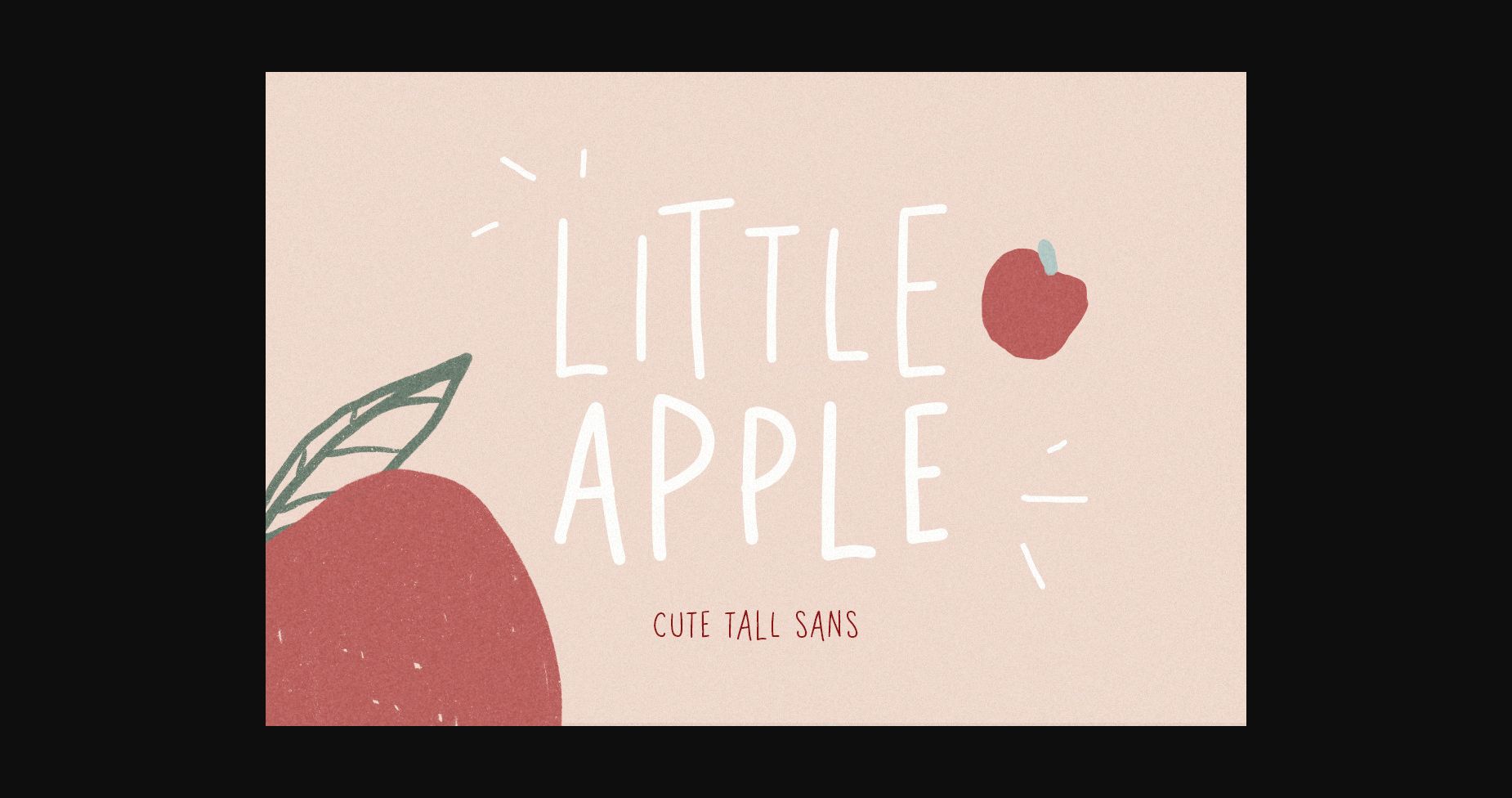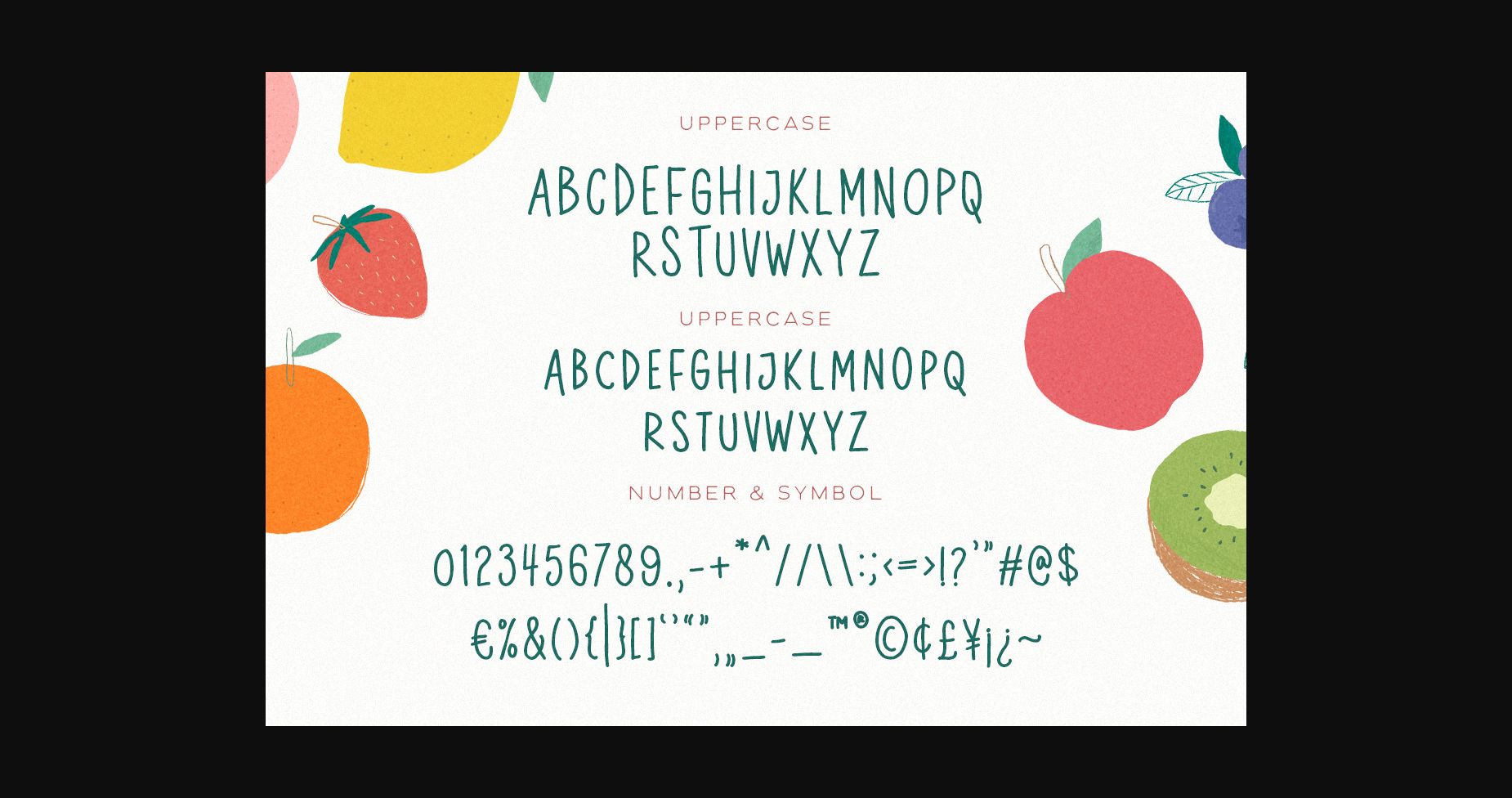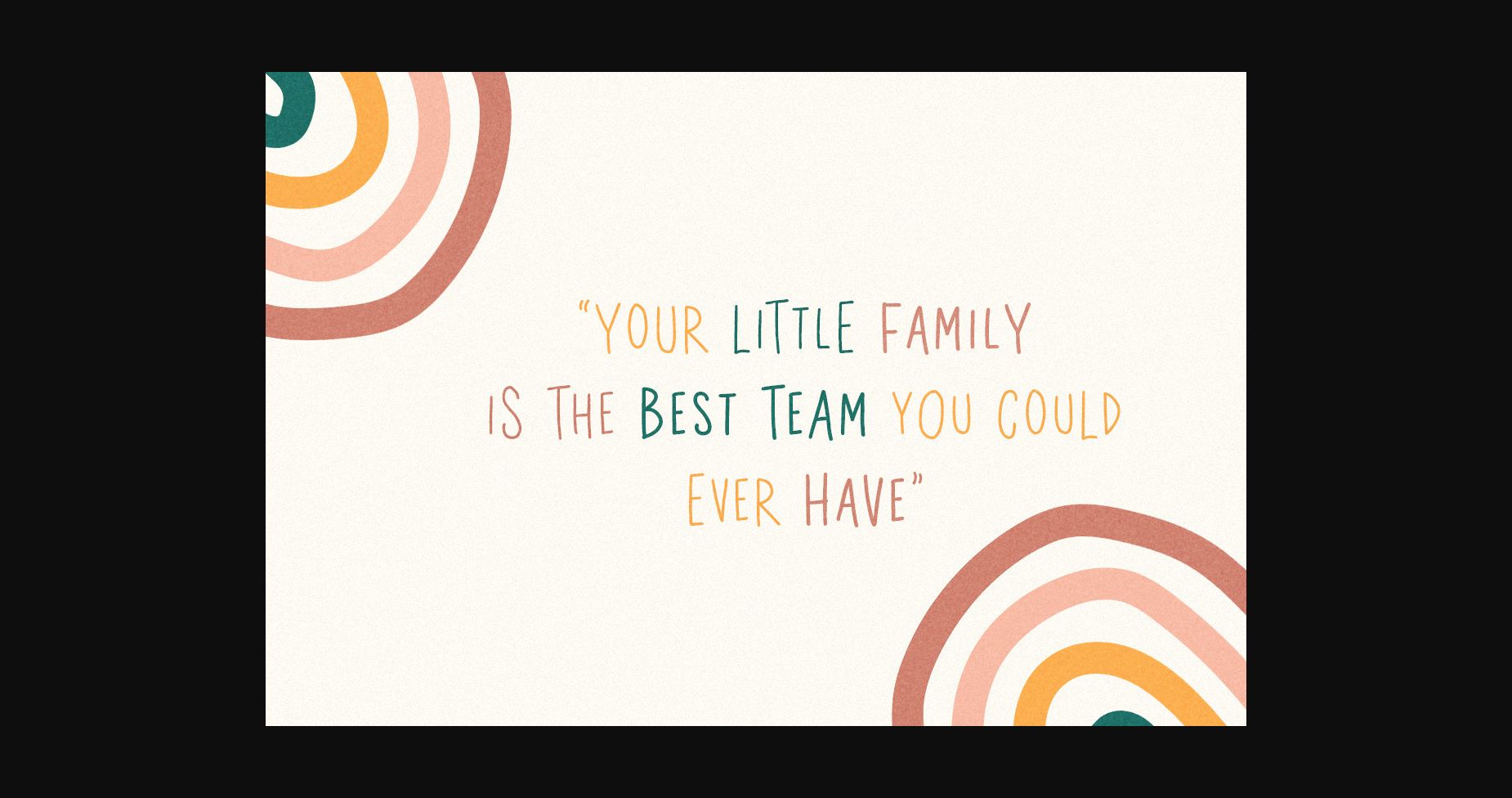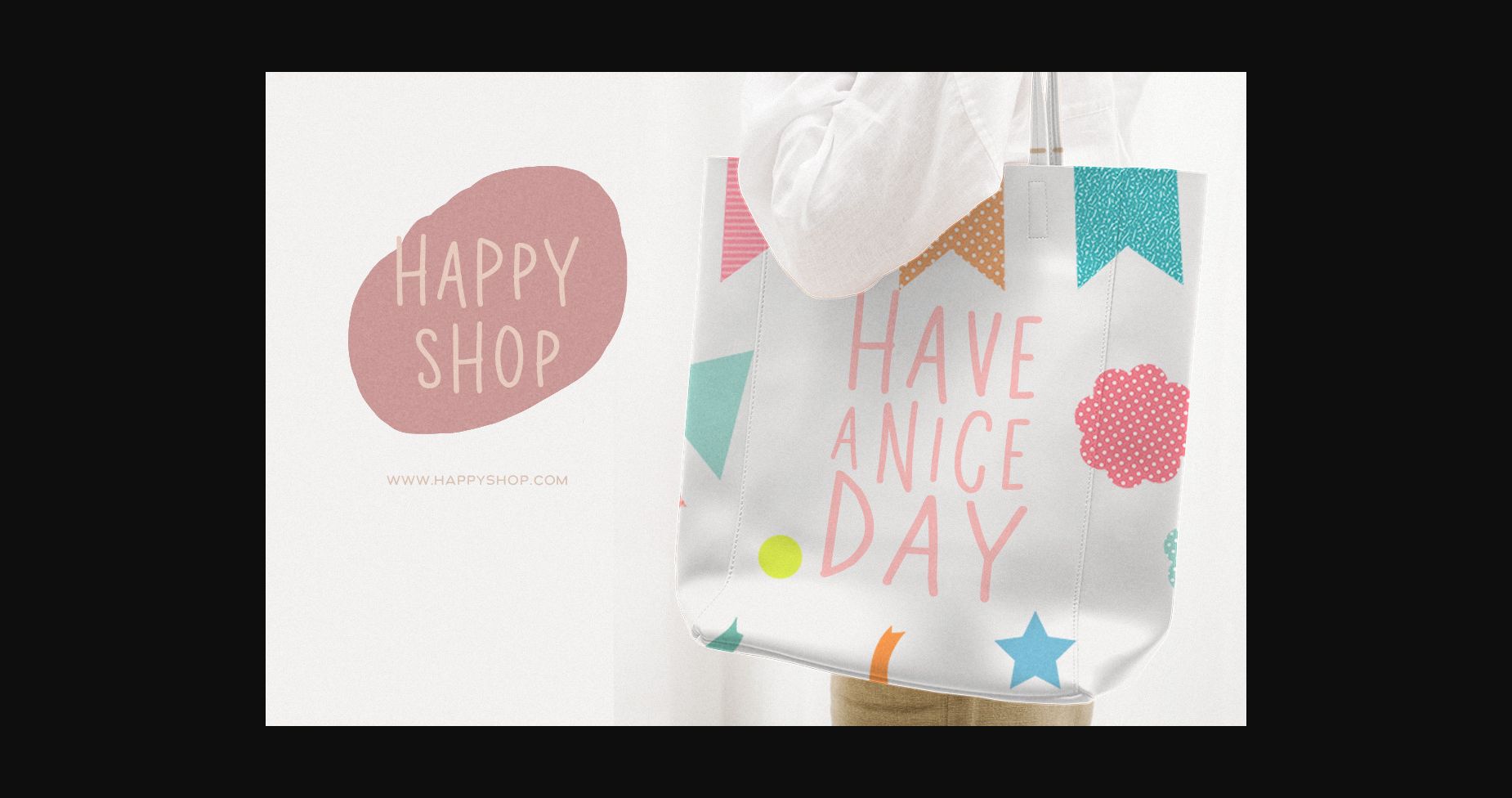
Little Apple Font
About Little Apple Font
Little Apple is a cute and tall sans serif font. It is both friendly and fun and can be used for various creations that require a neat touch.